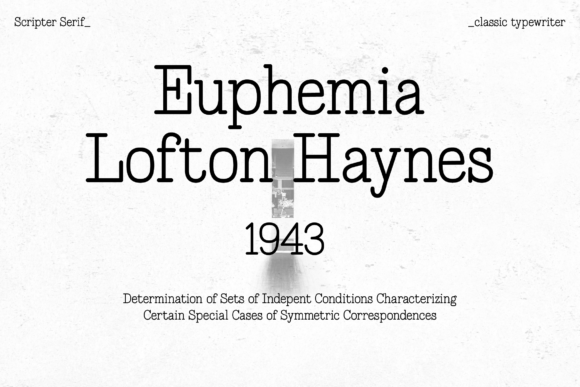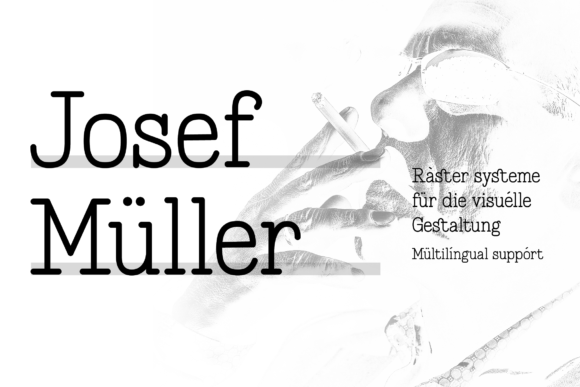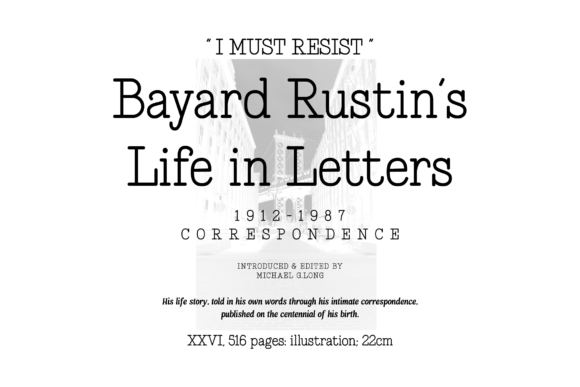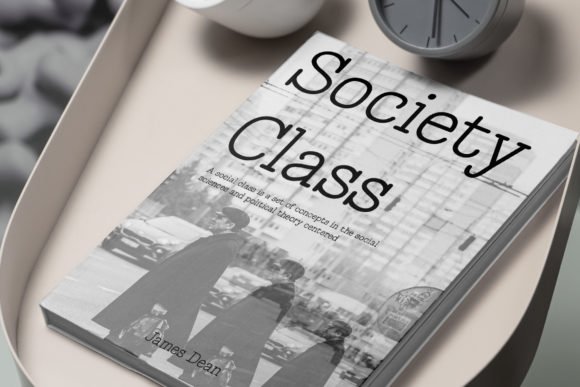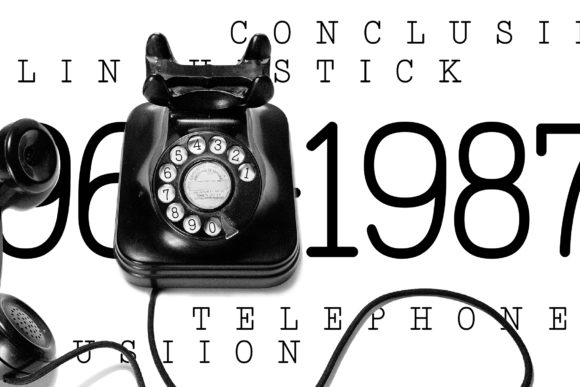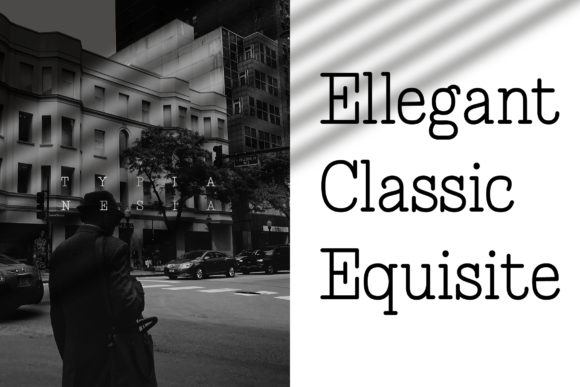
Introduction to Scripter Font
Scripter is a simple and casual serif font.
Add this font to your creative ideas and notice how it will make them stand out .
Key Features of Scripter Font
Why Choose Scripter Font?